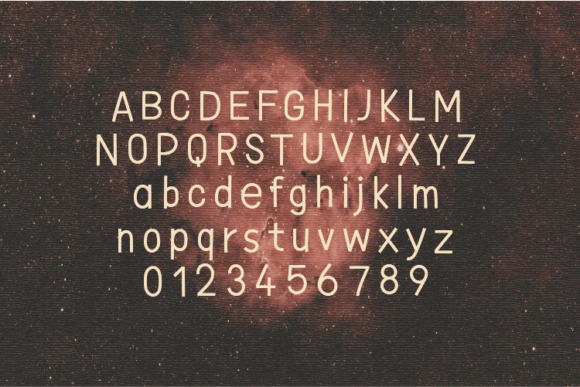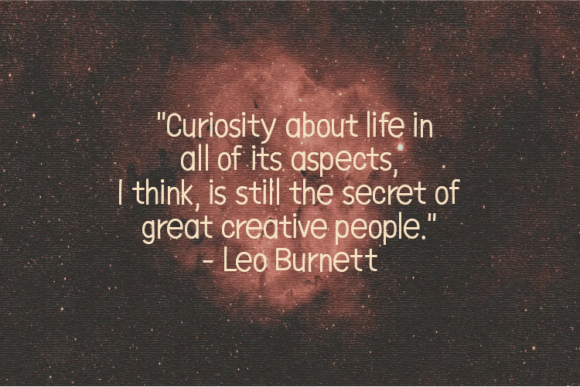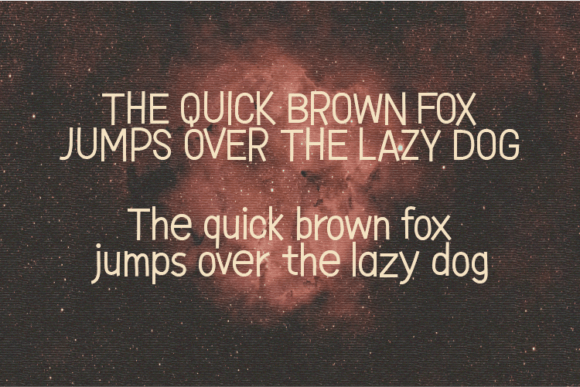
Unlock the Power of Creativity with Energetic Font
You know that moment when a spark of creativity hits, and your ideas start flowing like a river? It’s like the whole world has come alive, and nothing can stop you from bringing your vision to life. As designers, we’ve all been there – and that’s exactly where the Energetic Font comes in.
This modern and cool handwritten font is more than just a typography choice; it’s a key to unlocking the full potential of your creative projects. Whether you’re designing a logo, a poster, or a social media campaign, the Energetic Font adds a touch of excitement and energy that’s hard to resist. By adding it confidently to your projects, you’ll love the results – and so will your audience!
- Font Family: Energetic Font is a sans-serif font family that includes multiple styles and weights.
- Unique Characteristics: Energetic Font features a unique blend of geometric and organic elements, resulting in a dynamic and energetic feel that’s perfect for modern designs.
Energetic Font Review
I recently had the chance to work with the “Energetic Font” and I have to say, it’s a mixed bag. Here’s my honest review.
- Unique style: The Energetic Font has a distinct, energetic feel that can really make a design pop.
- Customization options: The font comes with a range of customization options, including bold and italic styles, which can be really useful for creating visual hierarchy.
- Good for headings: The font works particularly well for headings and titles, adding a touch of excitement and energy to your design.
- Readability issues: At smaller font sizes, the Energetic Font can be difficult to read, especially for long blocks of text.
- Limited legibility: The font’s energetic feel can sometimes come at the cost of legibility, making it less suitable for body text.
- Not ideal for body text: Overall, I wouldn’t recommend using the Energetic Font for body text, as it can be overwhelming and difficult to read.
The Energetic Font is a great choice for headings and titles, but it may not be the best option for body text. While it has some unique strengths, its limitations can make it less versatile than other fonts. With careful use and consideration, however, it can be a great addition to your design toolkit.
Tips for Getting the Most Out of Energetic Font
Use Energetic Font for headings and titles to add a touch of energy and excitement to your designs.
Pair Energetic Font with a clean and simple font for body text to create a visually appealing contrast.
Experiment with different font sizes, colors, and styles to find the perfect combination for your design needs.
Energetic Font is perfect for:
Marketing materials, such as brochures and flyers.
Branding and logo designs.
Infographics and data visualizations.
Any design where you want to add a touch of energy and excitement.
Alternatives to Energetic Font for Designers
Great Vibes is a beautiful, handwritten font perfect for adding a touch of elegance and sophistication to your designs. It’s ideal for use in branding, advertising, and editorial content where a creative, artistic feel is desired.
Great Vibes is more refined and elegant compared to Energetic Font, which is often bolder and more playful. While Energetic Font is best suited for energetic and youthful designs, Great Vibes is better suited for more mature and high-end projects.
Pacifico is a modern, elegant script font that’s perfect for adding a touch of luxury and sophistication to your designs. It’s ideal for use in branding, packaging, and editorial content where a high-end feel is desired.